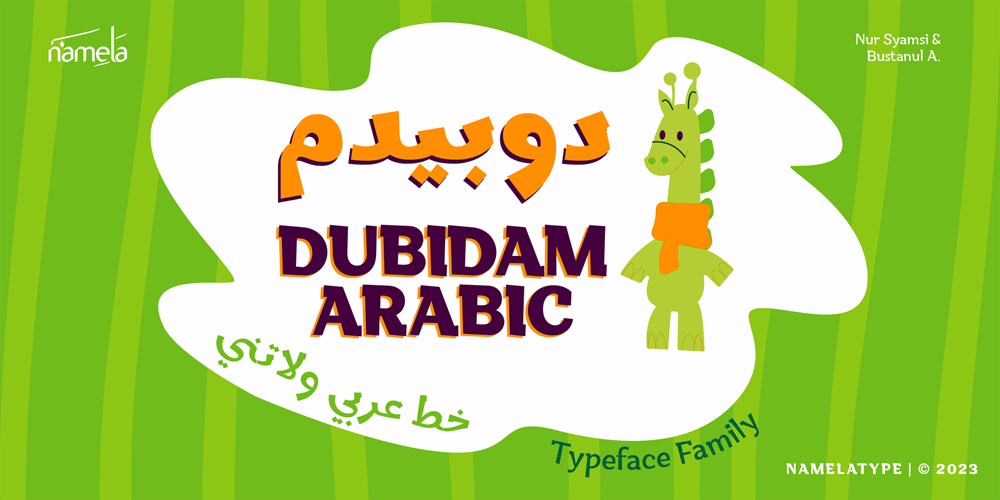
Dubidam Arabic
Dubidam Arabic font
Dubidam Arabic Font Family was designed by Nur Syamsi, Bustanul Arifin and published by NamelaType. Dubidam Arabic contains 7 styles and family package options. Dubidam Arabic is new version of Dubidam with the addition of Arabic glyphs (Arabic, Urdu, Kurdish, Pegon and Farsi.Dubidam Arabic is A Cheerful semi-slab Typeface. Has a playful but firm style in each stem approach to harmony with Latin.